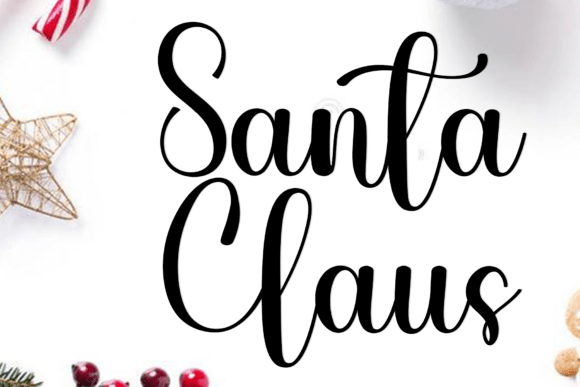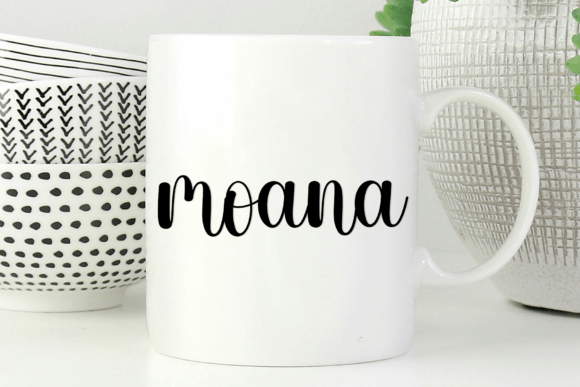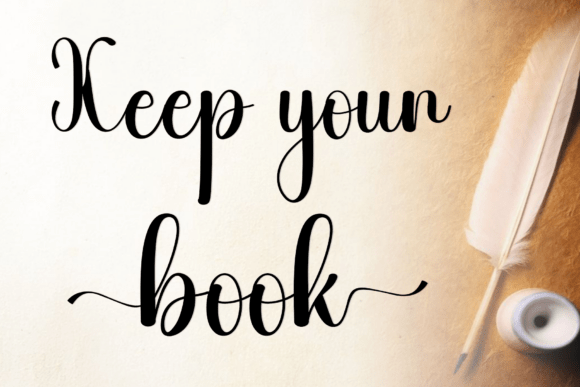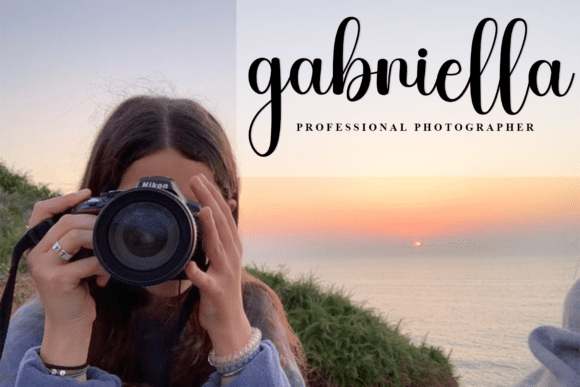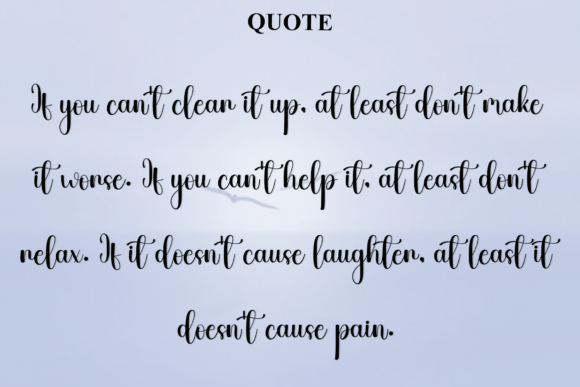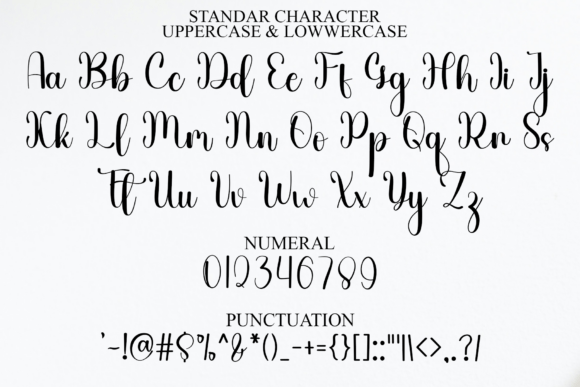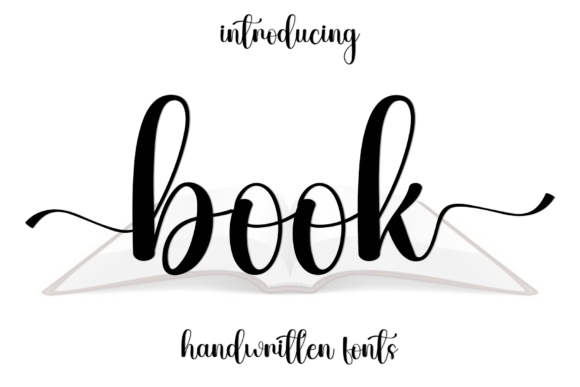
Introducing Book Font: The Perfect Blend of Casual and Creative
Are you tired of using the same old fonts for your personal projects, invitations, and social media graphics? Look no further than Book Font, a charming and creative typeface that exudes warmth and friendliness. With its round, playful strokes, Book Font creates a relaxed and approachable feel that’s perfect for designers and crafters looking to add a personal touch to their work.
The Characteristics of Book Font
Book Font is a hand-drawn font that boasts a unique and playful aesthetic. Its rounded edges and smooth curves create a soft, inviting look that’s sure to capture the attention of your audience. The font’s casual and creative vibe makes it perfect for a wide range of design projects, from personal invitations and social media graphics to blog posts and DIY crafts.
What Makes Book Font Special?
So, what sets Book Font apart from other fonts on the market? For starters, its charming, hand-drawn aesthetic adds a fun and unique touch to any design. The font’s playful strokes and rounded edges create a friendly and approachable feel that’s hard to achieve with more traditional fonts. Plus, Book Font is equipped with standard PUA Encoded glyphs, making it compatible with a wide range of design applications, including Adobe Photoshop, Corel, Adobe Illustrator, Canva, and many others.
The Benefits of Using Book Font
There are many benefits to using Book Font in your design projects. For one, its casual and creative vibe can help you stand out from the crowd and add a personal touch to your work. The font’s playful strokes and rounded edges also make it perfect for designs that require a friendly and approachable feel, such as:
- Personal invitations and party decorations
- DIY crafts and handmade projects
- Small business branding and marketing materials
How to Use Book Font in Your Designs
- Experiment with different font sizes and colors to add visual interest to your designs
- Pair Book Font with other fonts to create a unique and eye-catching combination
- Use Book Font to add a personal touch to your designs, such as in headings, titles, and captions
Whether you’re a seasoned designer or a crafty DIY enthusiast, Book Font is a versatile typeface that can be used in a wide range of projects. Here are a few tips and tricks for getting the most out of Book Font:
- Use Book Font to create custom party decorations, such as banners, garlands, and gift tags
- Pair Book Font with images and illustrations to create visually appealing social media graphics
- Experiment with different font styles and colors to create a unique and personalized look
In conclusion, Book Font is a charming and creative typeface that’s perfect for designers and crafters looking to add a personal touch to their work. With its casual and playful vibe, Book Font is ideal for a wide range of design projects, from personal invitations and social media graphics to DIY crafts and small business branding. So why settle for boring, generic fonts when you can add a touch of warmth and friendliness to your designs with Book Font?
Get Ready to Fall in Love with Book Font!